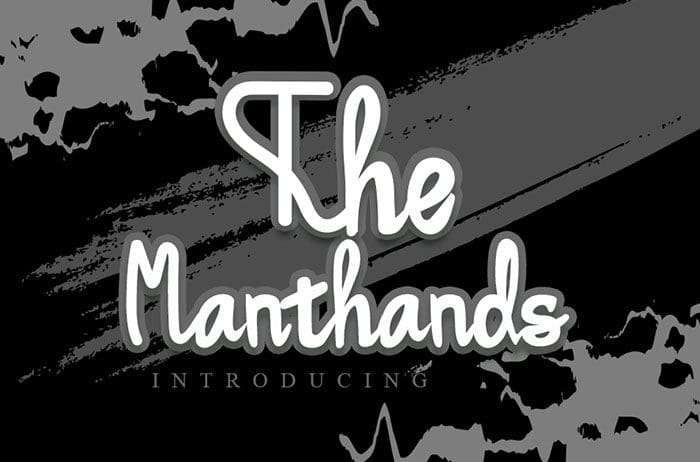
Manthands Calligraphy Font
Manthands calligraphy font carefully created with a touch of elegance. Whether it’s for web, print, moving images or anything else this font will look spectacular. Designed this font by Inermedia Studio. You can also search more free Calligraphy Fonts.